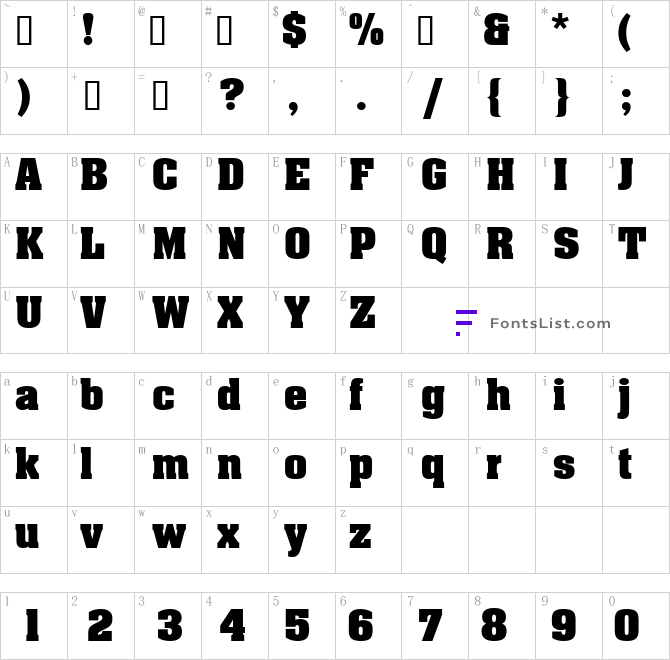
- Font Name:Aardvark
Aardvark-Bold.ttf is a very beautiful artistic font, Aardvark-Bold.ttf is widely used in the design and printing of various books and pictures,Aardvark-Bold.ttf has a strong visual impact,Aardvark-Bold.ttf is a commonly used font in newspapers, magazines and books, and is used in posters, e-commerce Poster design, store design, logo design, font design and other fields.Aardvark-Bold.